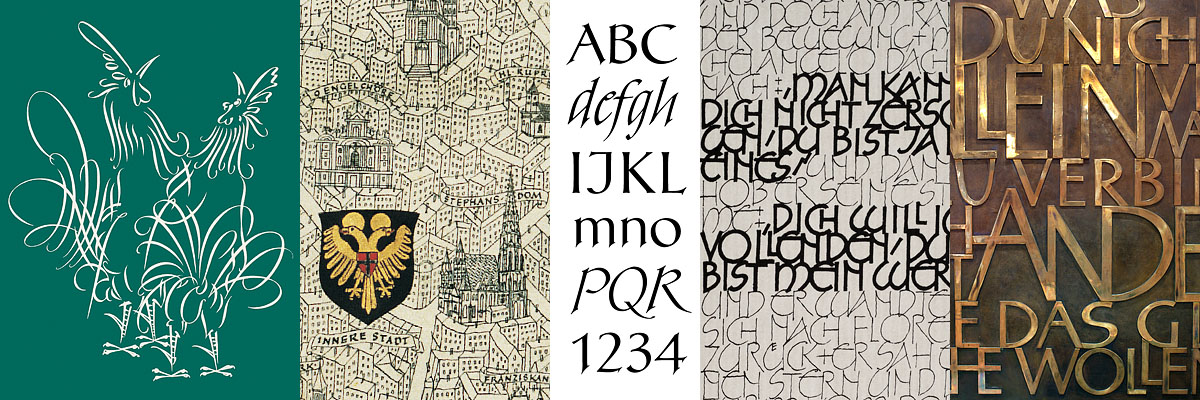
In a career that spanned 75 years, Friedrich Neugebauer (1911–2005) developed and refined a calligraphic style like no other. With roots that extended back through his own teacher, Rudolf von Larisch, to the Jugendstil and the Wiener Werkstätte, Friedrich worked with a compelling palette of colors, materials, textures, and scales. He created broadsides and manuscript books, signage, sculptures, established a private press, and taught generations of students. Neugebauer’s The Mystic Art of Written Forms (translated into English by our speaker in 1980) is often cited as one of most important manuals of calligraphy ever written. He also published children’s books of the highest artistic merit, and helped to launch the careers of such illustrators as Lisbeth Zwerger.
Please join us for a visual exploration of Neugebauer’s distinctive works, and a glimpse of his life in a small village in the Salzkammergut — Austria’s “Sound of Music” country.